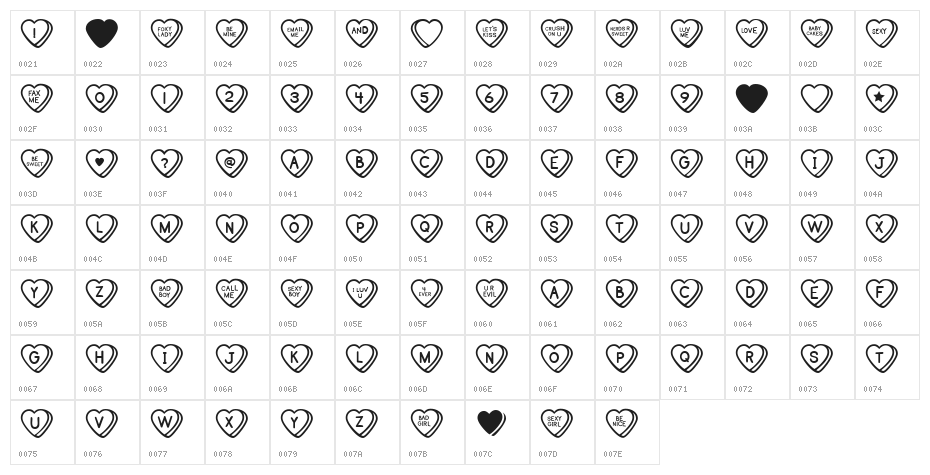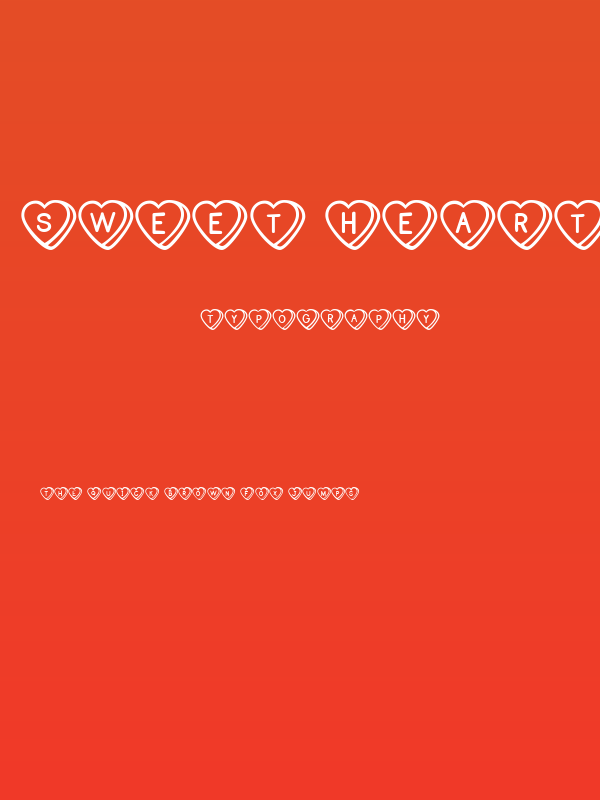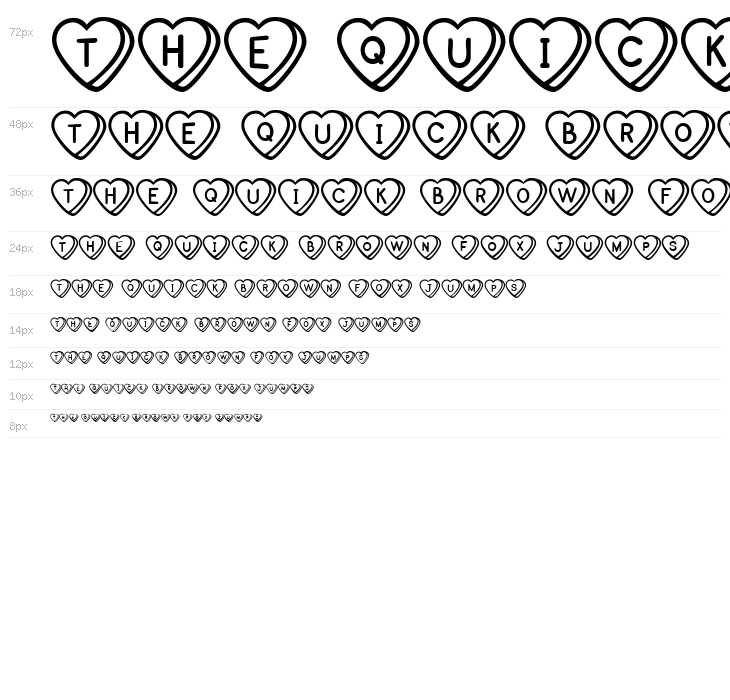
Sweet Hearts BV Font
Sweet Hearts BV Description
This playful and decorative font features characters enclosed within heart shapes, giving it a charming and whimsical appearance. The letters and numbers are bold and clear, making them easily readable despite the decorative heart outlines. The font includes both uppercase and lowercase alphabets, numerals, and a selection of special characters and phrases, all maintaining the heart motif. The design is consistent across all characters, with a uniform stroke weight and spacing that ensures a cohesive look. The heart shapes add a layer of fun and romance, making this font ideal for projects that require a touch of affection or playfulness.
| Overall Style | Playful, Romantic |
| Use Case | Headlines, Logos, Greeting Cards |
| Proposed Projects | Ideal for Valentine's Day cards, wedding invitations, love notes, playful branding, and any project that requires a romantic or whimsical touch. |